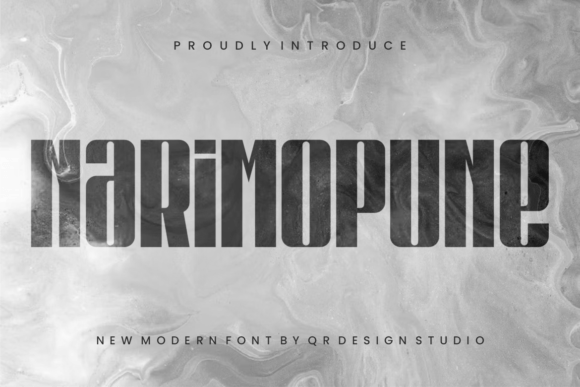
Embark on a typographic odyssey with Narimopune Font, the ultimate font for your small display endeavors. Designed by the ingenious qrdesignstd, this sans serif typeface radiates boldness and authenticity, leaving an unforgettable impact.
Crafted with precision, Narimopune Font seamlessly blends classic elegance with modern flair. Its distinct letterforms exude a timeless charm, evoking a sense of nostalgia and heritage. Simultaneously, the font's clean lines and sharp angles add a touch of contemporary sophistication, ensuring that your designs remain relevant and captivating.
Unleash your creativity and let Narimopune Font ignite your branding projects. Its versatility shines in logos, sports-themed designs, and countless other applications. Whether you're creating a bold statement or seeking understated elegance, this font effortlessly adapts to your vision.
Beyond its aesthetic appeal, Narimopune Font boasts exceptional functionality. Its carefully crafted characters maintain their clarity and legibility, even at smaller sizes. This makes it an ideal choice for small display applications, where every pixel counts. Trust Narimopune Font to deliver your message with precision and impact, no matter the context.